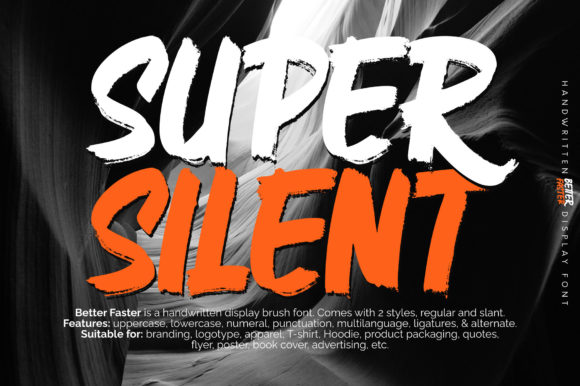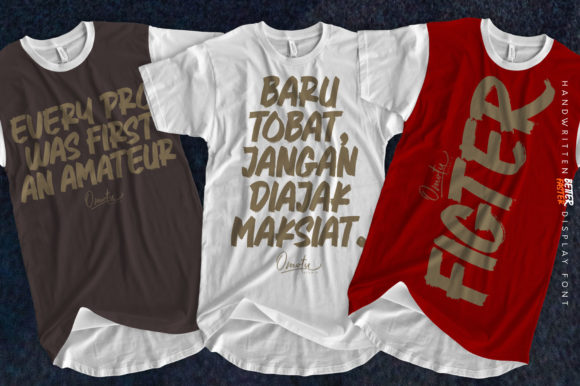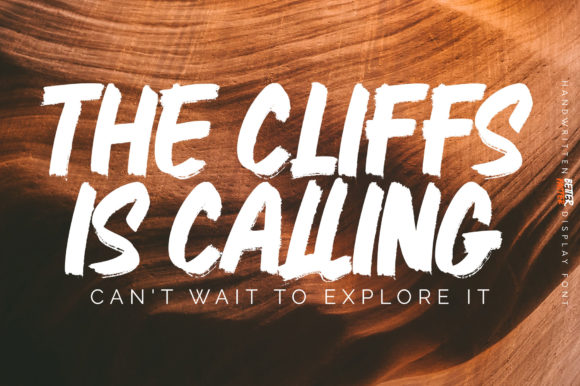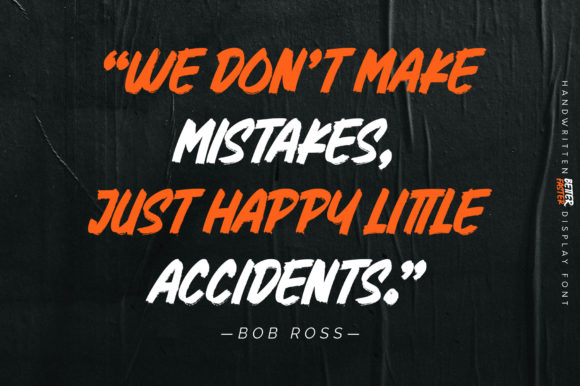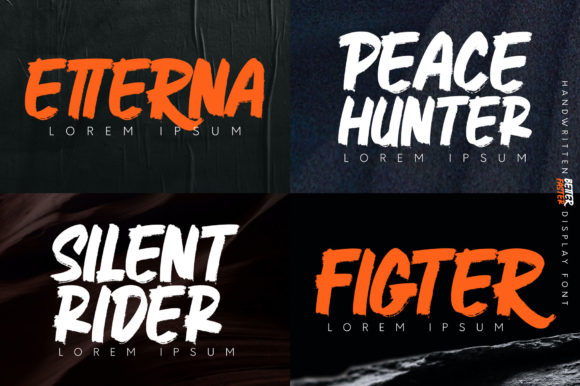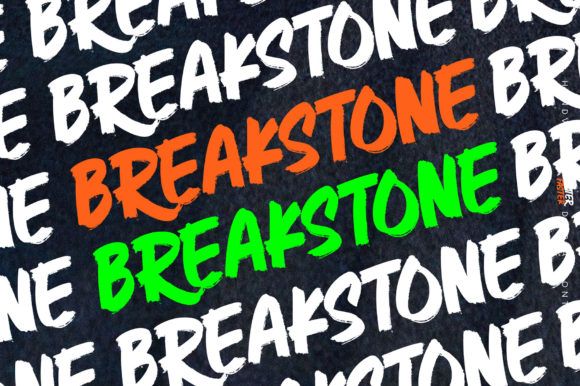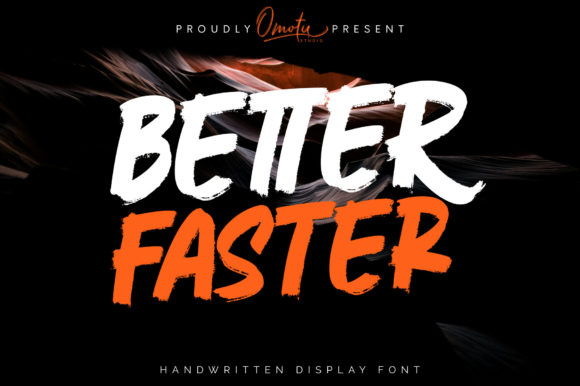
Ah, the eternal quest for the perfect font. I still remember the time I was working on a project for a client who wanted a bold, eye-catching display font that would make their brand stand out. I spent hours scouring the internet, trying out font after font, but nothing seemed quite right. That was until I stumbled upon **Better Faster Font**. This cool and fresh brushed display font has been a game-changer for me, and I’m excited to share my experience with you.
An Honest Review of Better Faster Font
So, what makes Better Faster Font so special? Let’s dive into the good stuff and, of course, the not-so-good stuff.
• ✨ Unique Brushed Look: Better Faster Font has a distinctive brushed look that’s both modern and edgy. It’s perfect for designs that need a bit of attitude.
• ✅ Highly Versatile: This font is incredibly versatile, making it suitable for a wide range of projects, from posters and flyers to social media graphics and logos.
• 💥 Endless Variations: With its OpenType features and glyphs, Better Faster Font offers endless variations, allowing you to experiment and find the perfect look for your project.
While Better Faster Font is an amazing font, it’s not without its quirks. Here are a few things to keep in mind:
• 🤔 Legibility at Small Sizes: Like many display fonts, Better Faster Font can be a bit tricky to read at small sizes. Make sure to test it out at different sizes to ensure it’s legible for your project.
• ⚠️ Limited Formality: Due to its brushed look, Better Faster Font may not be the best choice for very formal or professional projects. It’s perfect for designs that need a bit of personality, but may not be suitable for, say, a corporate logo.
The Story Behind Better Faster Font
Rumor has it that Better Faster Font was inspired by the fast-paced world of street art. Its creator, a talented type designer, wanted to capture the energy and spontaneity of brushed lettering. The result is a font that’s both modern and timeless.
Font Name Better Faster Font
Author Omotu
Q: What type of projects is Better Faster Font best suited for?
A: Better Faster Font is perfect for designs that need a bold, eye-catching display font, such as posters, flyers, social media graphics, and logos.
Q: Is Better Faster Font available in different weights or styles?
A: While Better Faster Font may not have multiple weights or styles, its OpenType features and glyphs offer endless variations, allowing you to experiment and find the perfect look for your project.